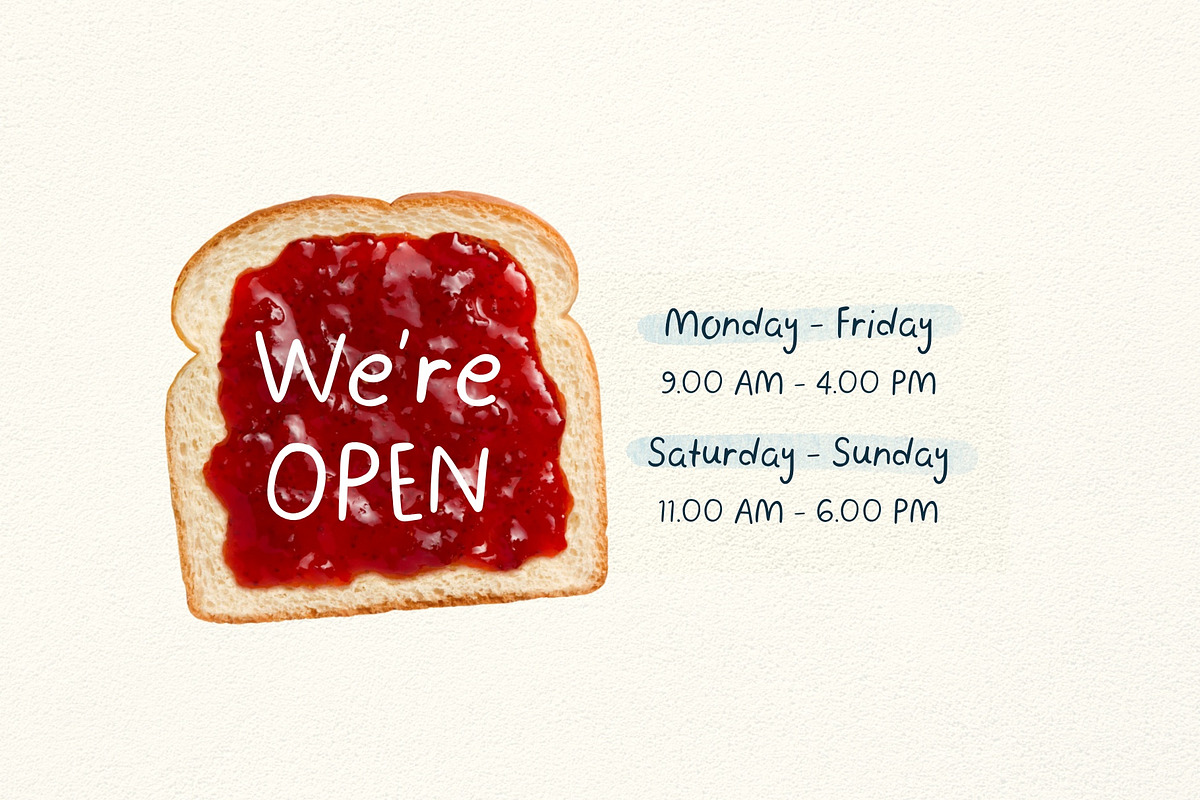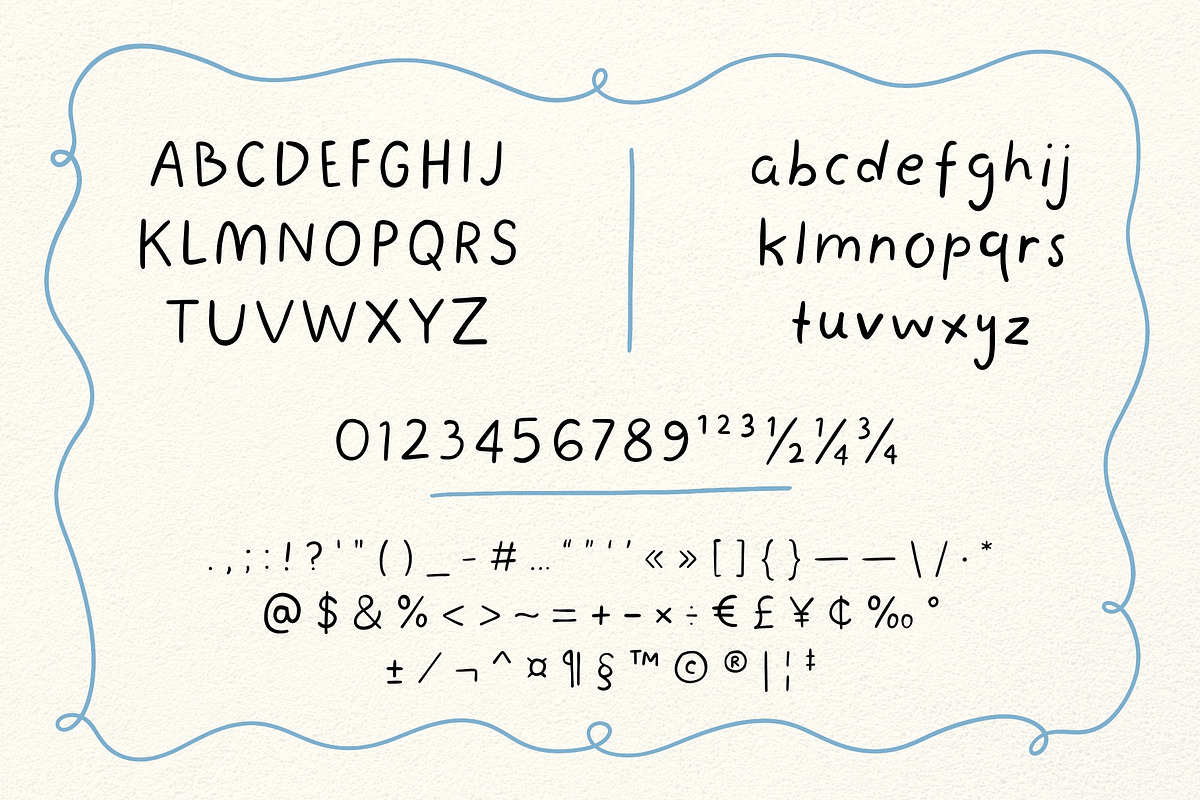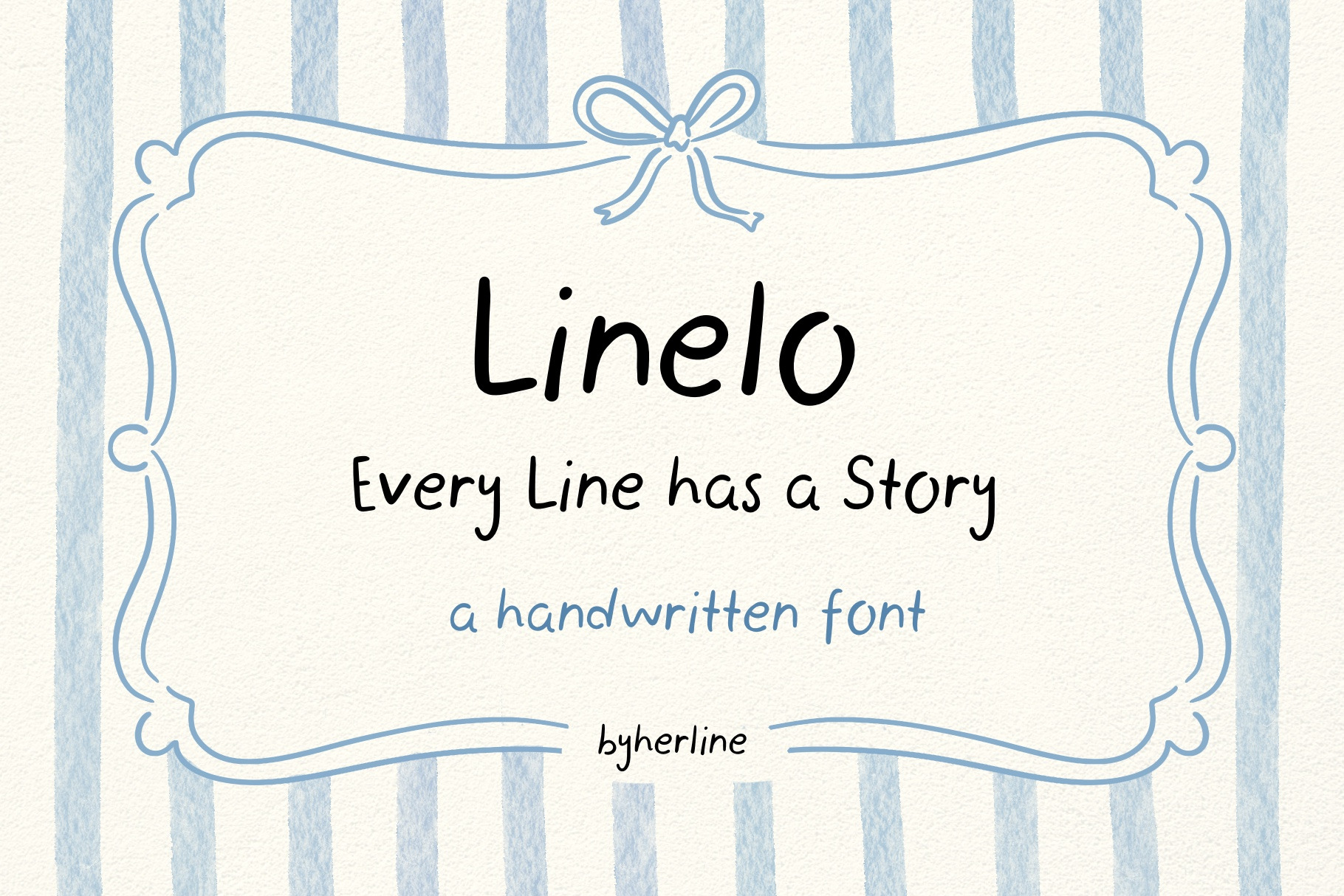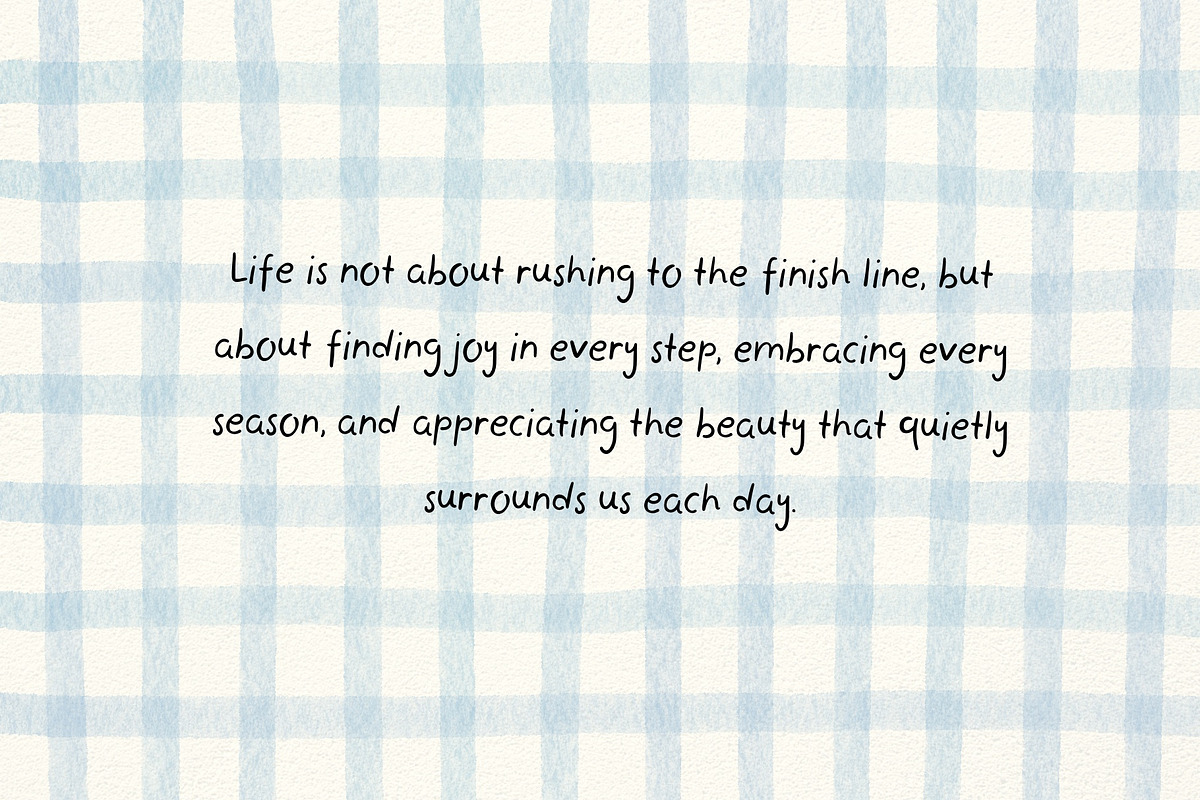
Linelo - A Handwritten Font
Linelo is a handcraftsd display font designed to capture warmth, personality, creativity in every stroke. Inspired by the beauty of simple lines,it transforms ordinary word into meaningful expressions. Whether you’re creating branding, greeting card, wedding stationery, packaging, or social media designs, Linelo brings a soft, authentic touch that tells a story with every letter.